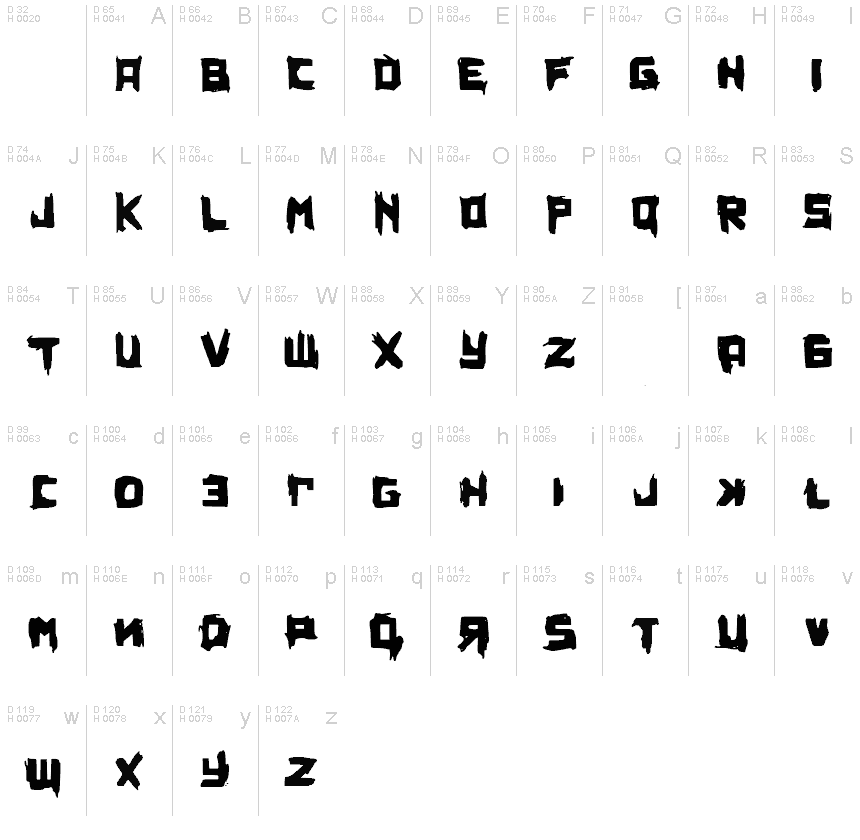
Privjet
"Privjet" is a bold, display font that exudes a distinct, weathered aesthetic. Designed by Leonard Posavec of LeoSupply.co, this font's eroded texture and sharp edges lend it an industrial, gritty charm. The asymmetric letterforms and uneven stroke widths create a sense of raw, organic energy, making it well-suited for impactful headlines, signage, and branding applications.
Privjet's robust, attention-grabbing presence makes it an ideal choice for projects seeking to convey a sense of rugged authenticity, from album covers to urban-inspired designs.